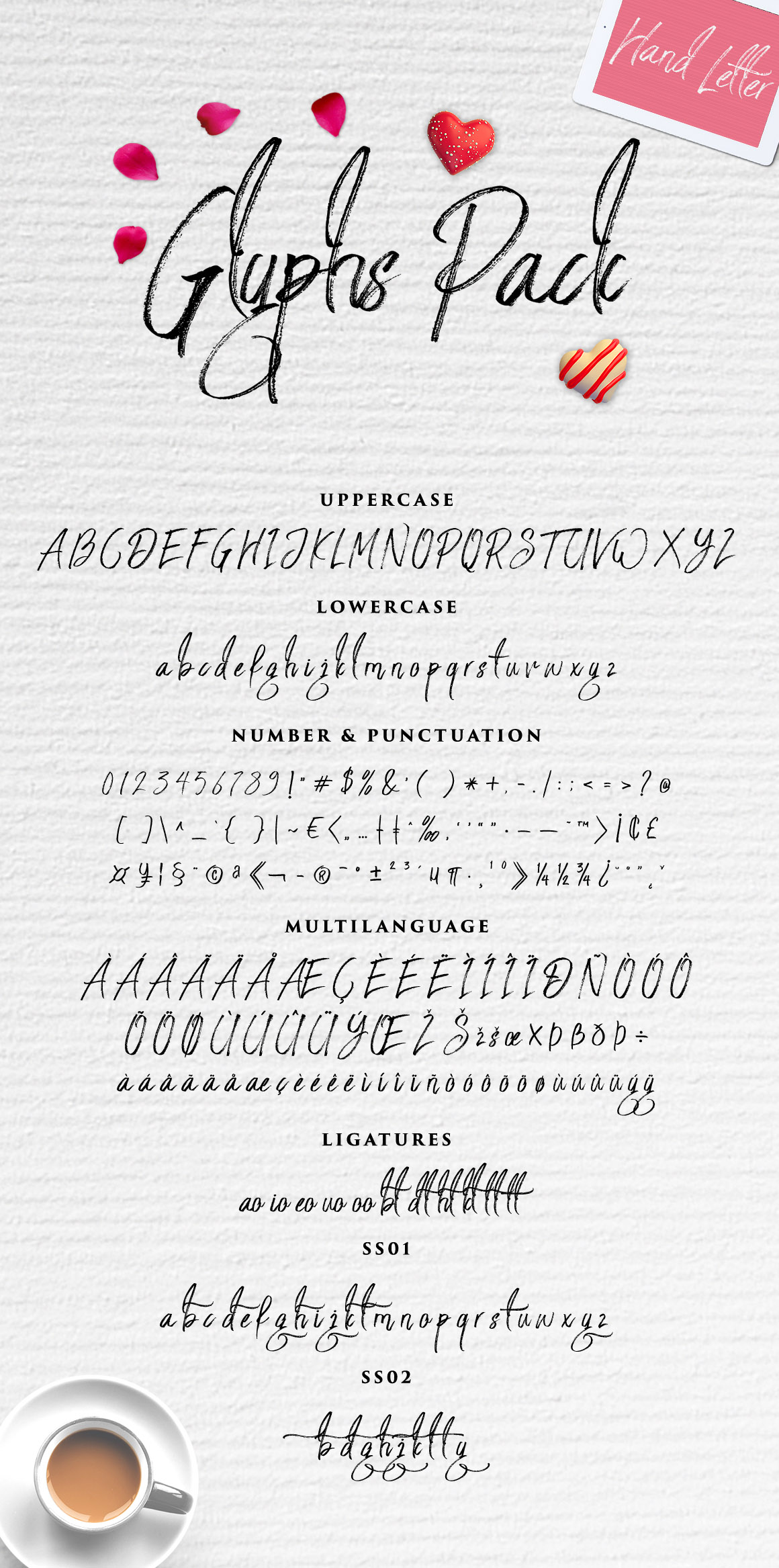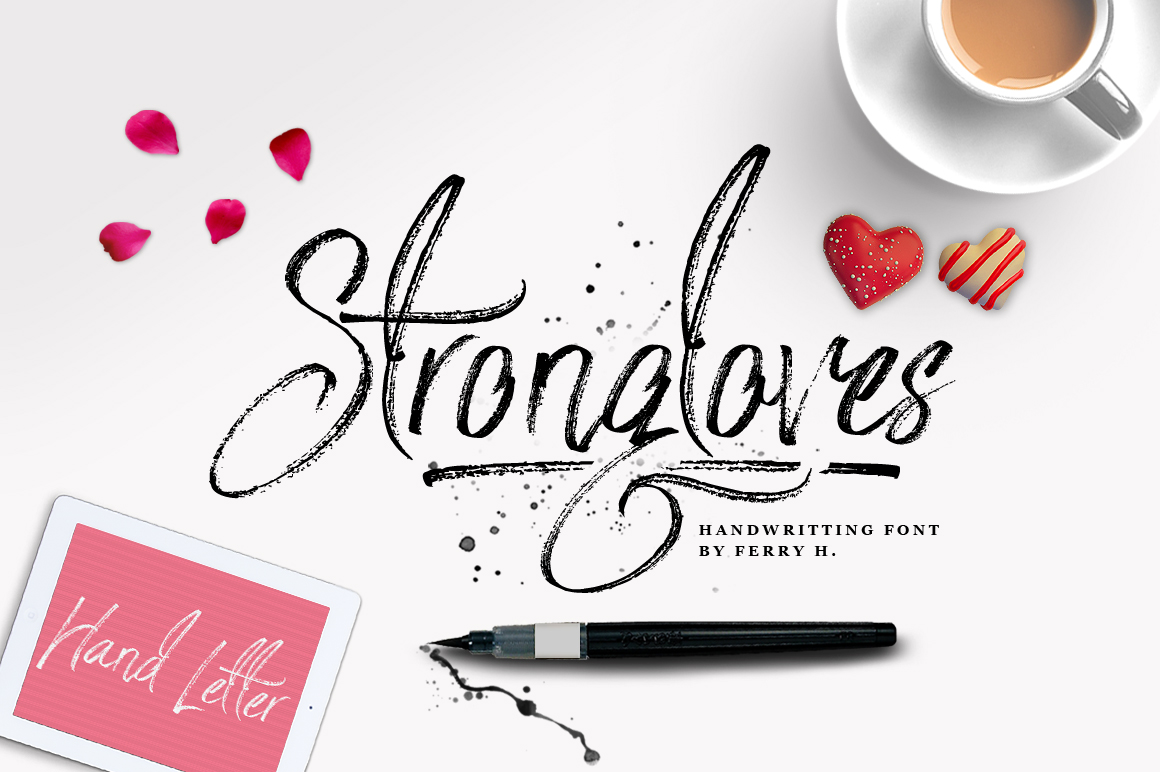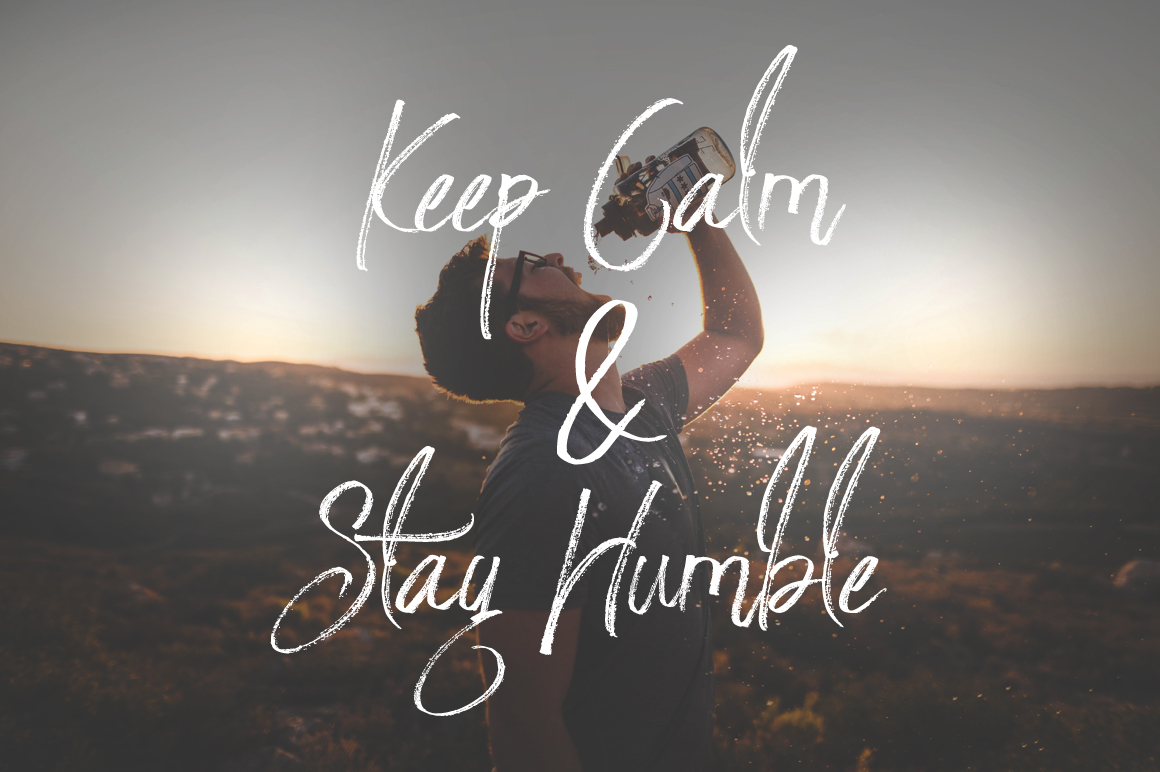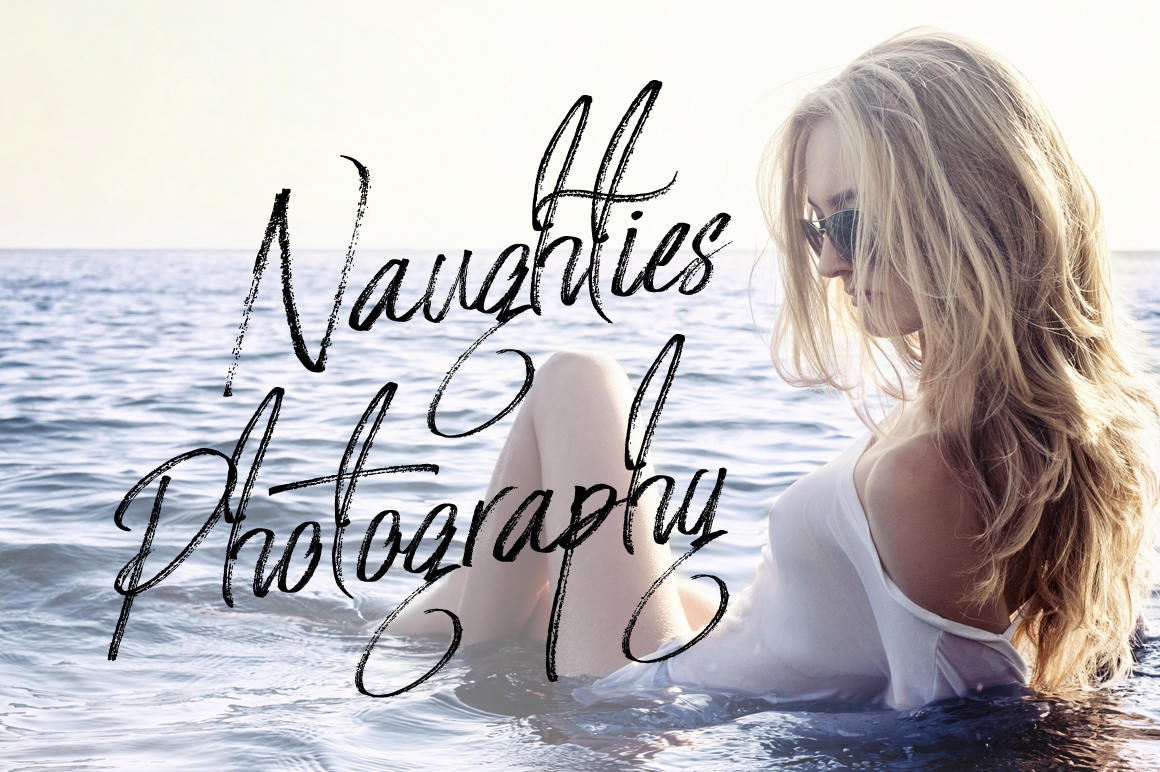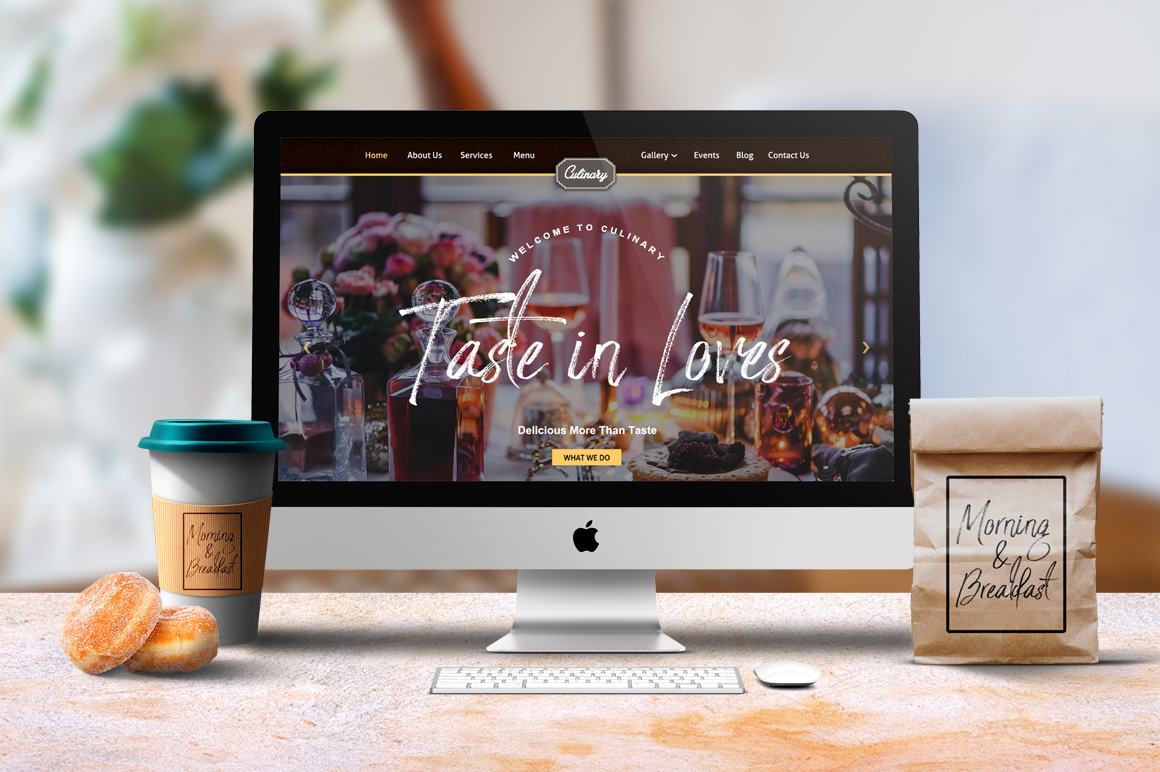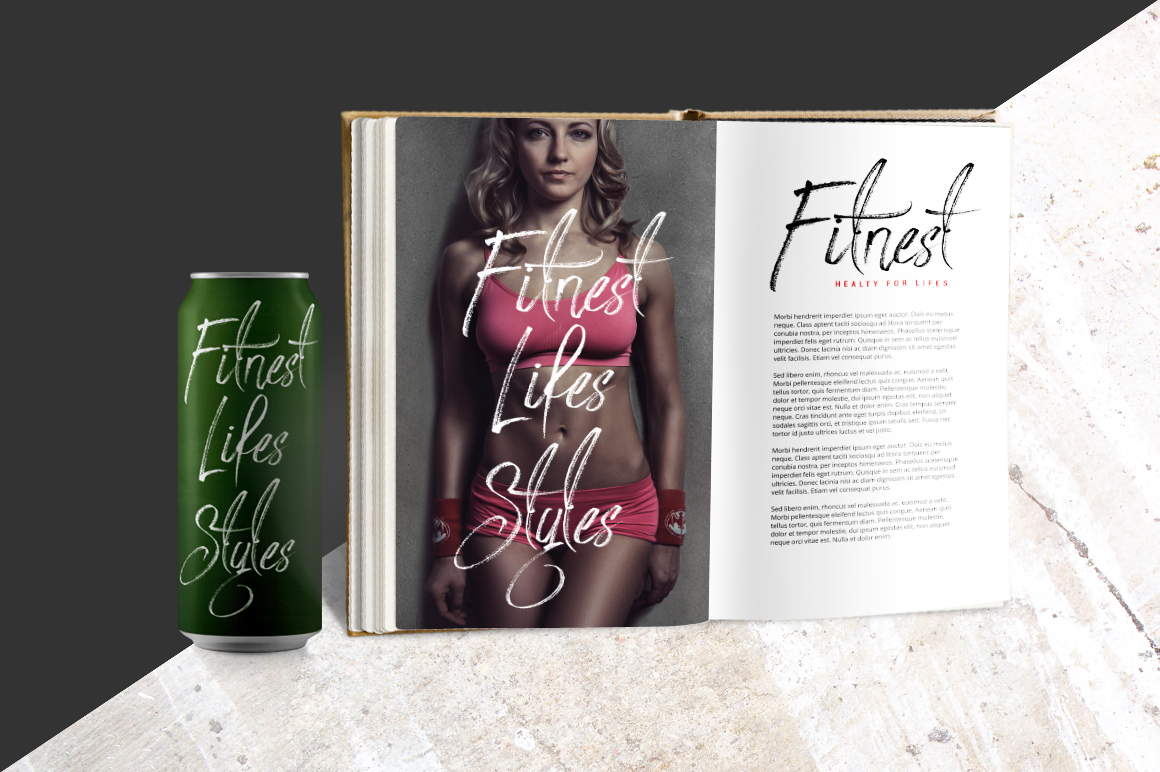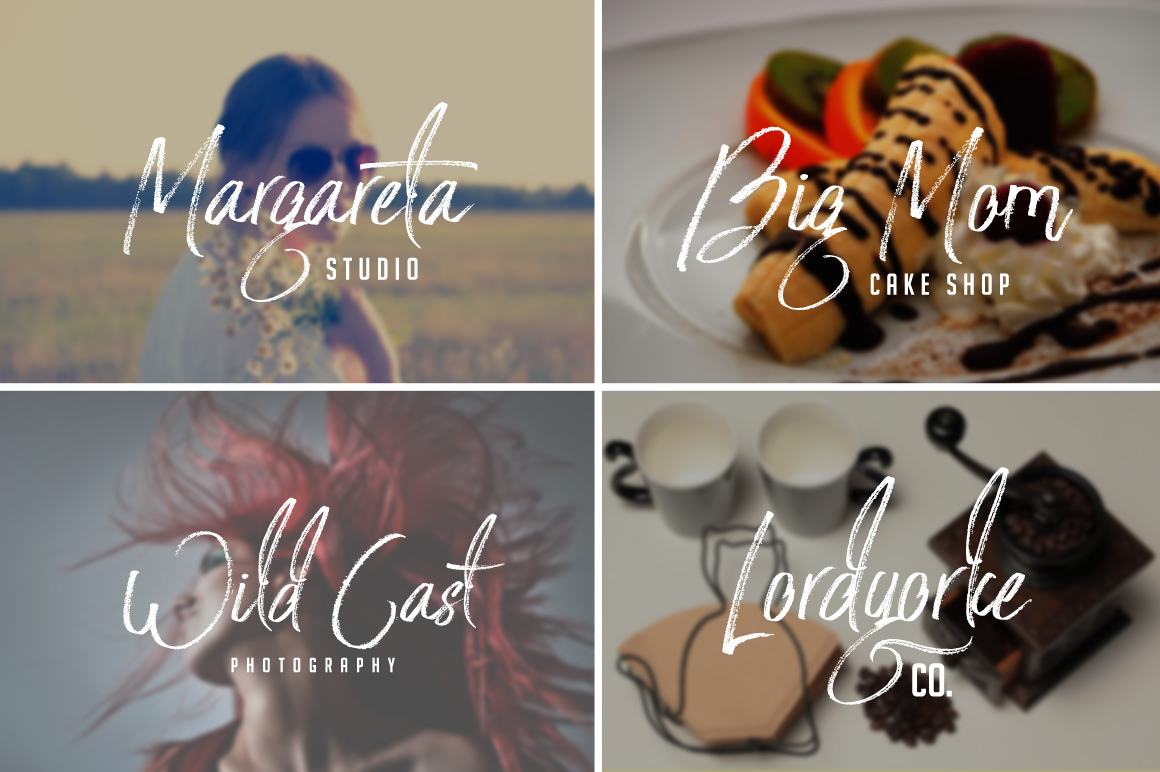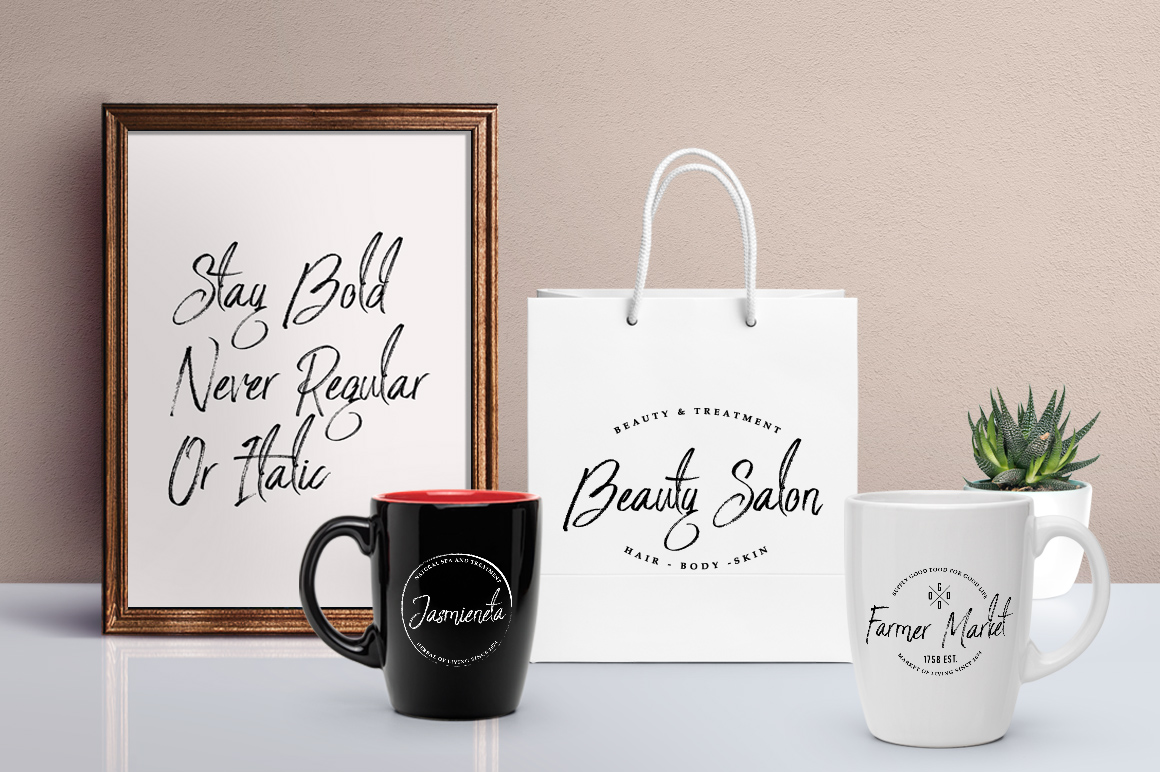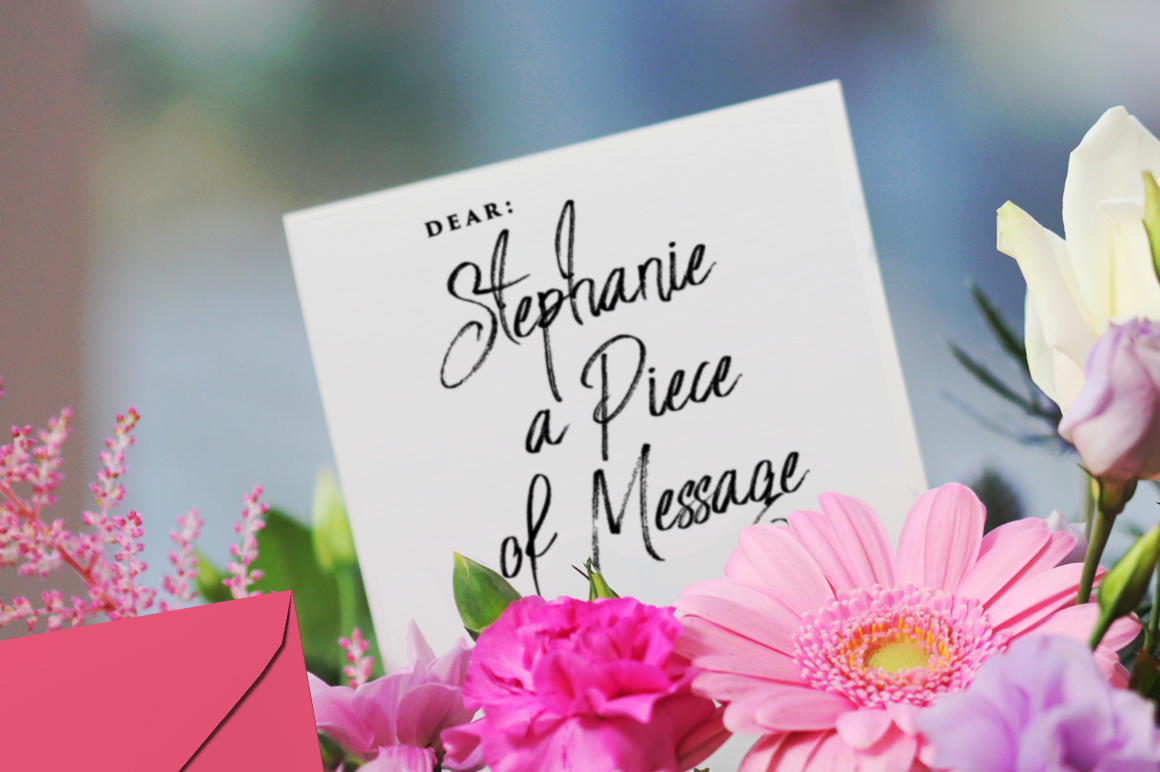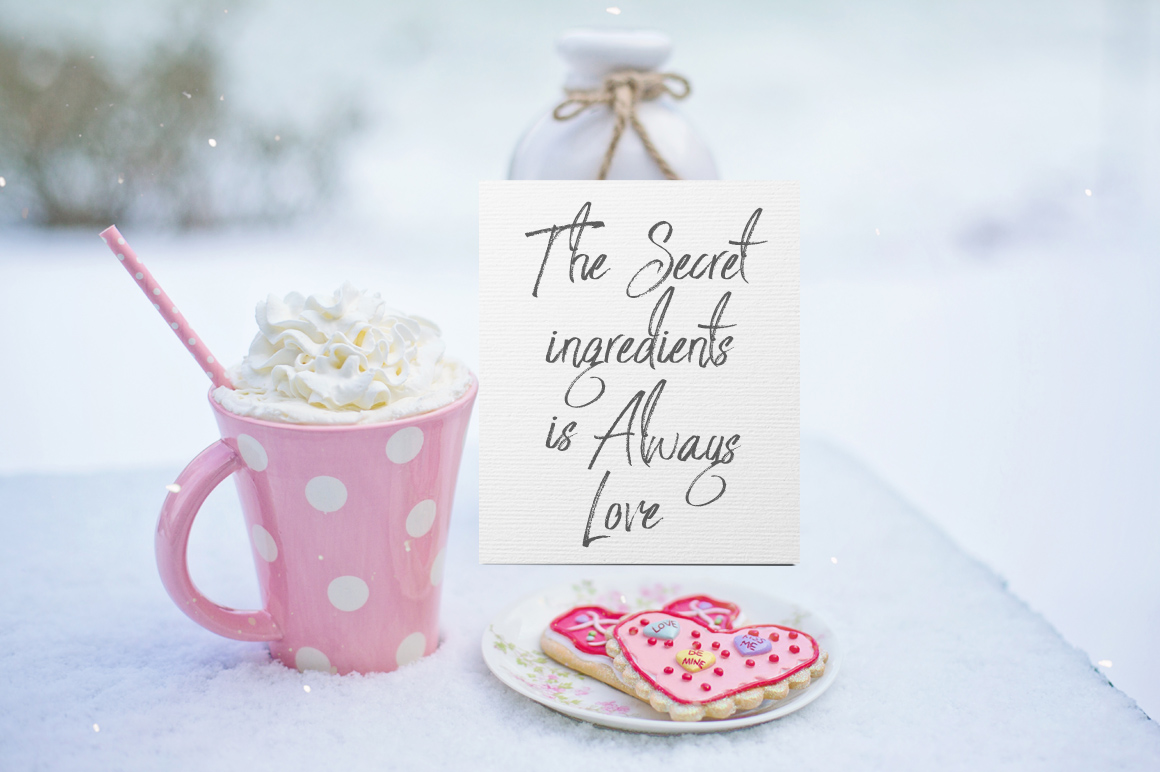
Strongloves Font
About Strongloves Font
Strongloves is a cool textured dry brush font, ideal for displays and headlines. This hipster styled script font is beautiful yet robust, making it ideal for wide range of styles and projects.